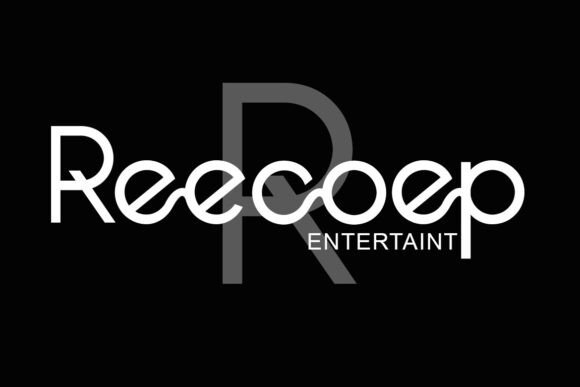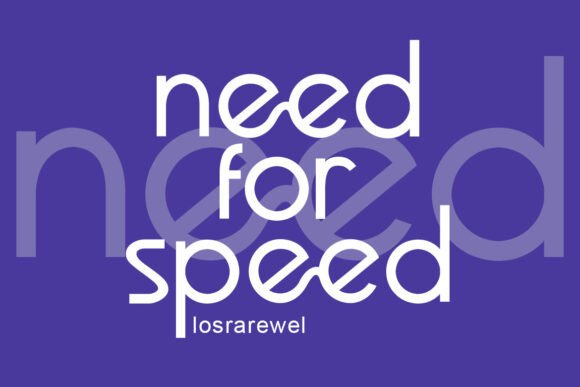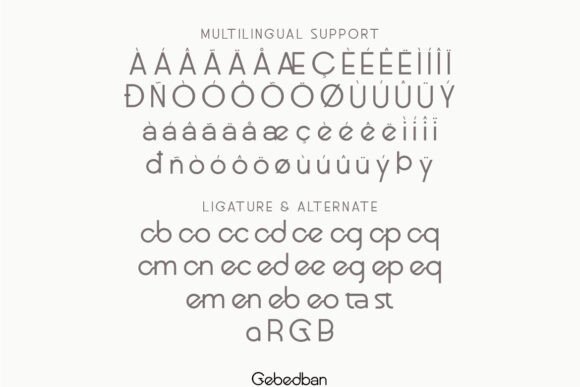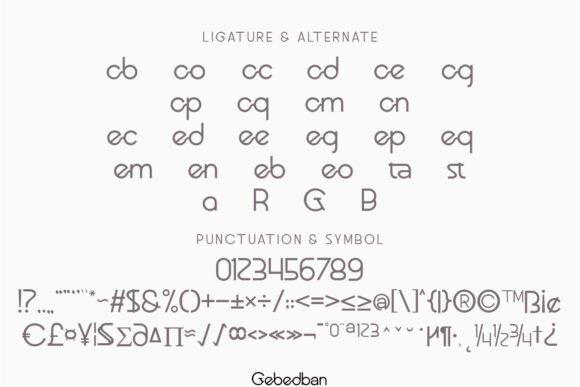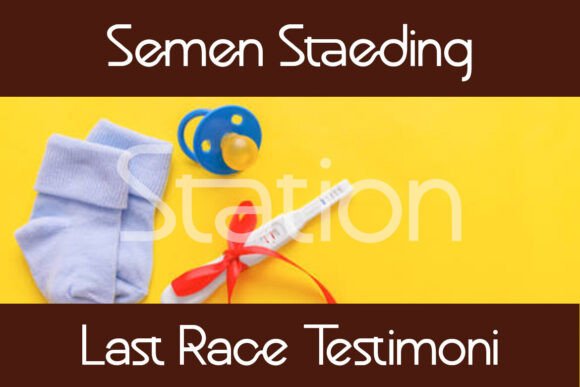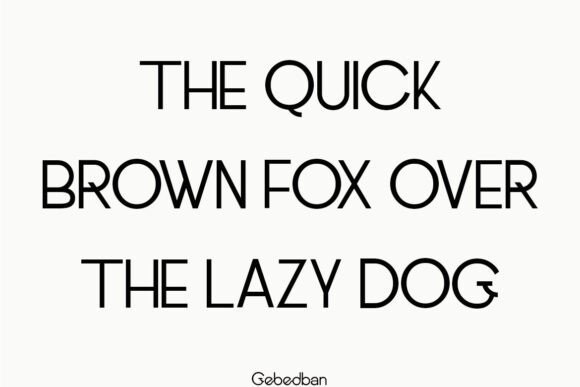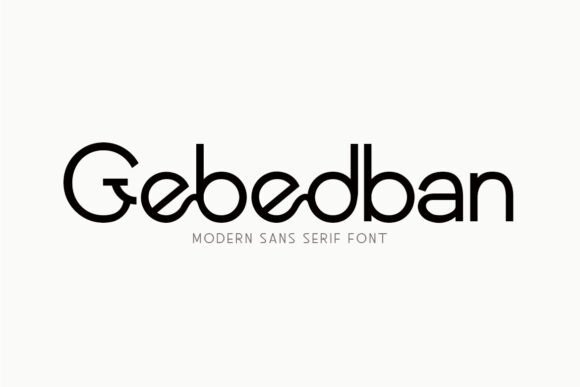
Introducing Gebedban Font: The Ultimate Choice for Modern Designs
In the world of typography, a font can make or break a design. With the right font, your project can stand out from the crowd and leave a lasting impression. That’s where Gebedban Font comes in – a modern sans-serif font that combines elegance and sportiness, perfect for a wide range of design applications.
What is Gebedban Font?
Gebedban is a sleek and modern sans-serif font designed to cater to the needs of designers and crafters. Its clean lines, precise curves, and balanced proportions make it an excellent choice for various design projects, from t-shirt designs and brand logos to corporate fonts and fashion branding.
Key Features of Gebedban Font
- Elegant and Sporty Design: Gebedban’s unique design combines elegance and sportiness, making it perfect for designs that require a touch of sophistication and dynamism.
- Versatile and Adaptable: Gebedban’s modern look and feel make it suitable for both casual and formal projects, allowing designers to experiment with different styles and themes.
- High-Quality and Precise: Gebedban’s precise curves and balanced proportions ensure that it looks great in various sizes and resolutions, making it ideal for designs that require clarity and precision.
Use Cases for Gebedban Font
Gebedban’s versatility and style make it an excellent choice for various design applications, including:
- T-Shirt Design: Gebedban’s bold and modern look makes it perfect for t-shirt designs that require a statement piece.
- Brand Logo: Gebedban’s elegant and sporty design makes it an excellent choice for brand logos that require a touch of sophistication and dynamism.
- Corporate Font: Gebedban’s clean and professional look makes it suitable for corporate fonts that require a modern and sleek design.
- Fashion Branding: Gebedban’s stylish and elegant design makes it perfect for fashion branding that requires a touch of luxury and sophistication.
Why Choose Gebedban Font?
With so many fonts available, why choose Gebedban? Here are a few reasons why Gebedban stands out:
- Unique Design: Gebedban’s unique design sets it apart from other fonts, making it an excellent choice for designers who want to create something distinctive.
- High-Quality: Gebedban’s high-quality design ensures that it looks great in various sizes and resolutions, making it ideal for designs that require clarity and precision.
- Easy to Read: Gebedban’s clean and precise design makes it easy to read, even in small sizes, making it perfect for designs that require legibility.
In conclusion, Gebedban Font is an excellent choice for designers and crafters who want to create modern and stylish designs. Its unique design, versatility, and high-quality make it perfect for various design applications, from t-shirt designs and brand logos to corporate fonts and fashion branding. Download Gebedban Font today and experience its elegance and sportiness for yourself.